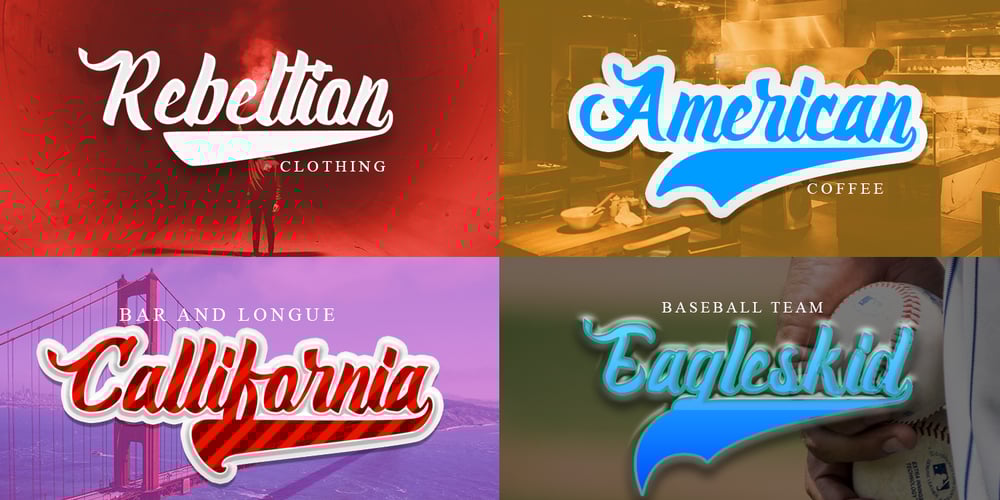
Claiborne Font Family was designed by Suandana ipandemade and published by madeDeduk. Claiborne contains 2 styles and family package options. Hello I’m really excited to introduce Claiborne script, with a solid & a rough style. Claiborne script is perfect for poster design, book covers, merchandising, fashion campaigns, newsletters, branding, advertising, magazines, greeting cards, album covers, and quote designs and more. What’s included? – Claiborne Solid.otf – Claiborne Rough.otf Feature – UPPERCASE – lowercase – Number & Symbol – International Glyphs – Alternative lowercase – Ligature – Swash If you need anything else just shoot me an email at: dedukvic@gmail.com Find more previews on my Instagram here : https://www.instagram.com/acekelgondolayu/?hl=en